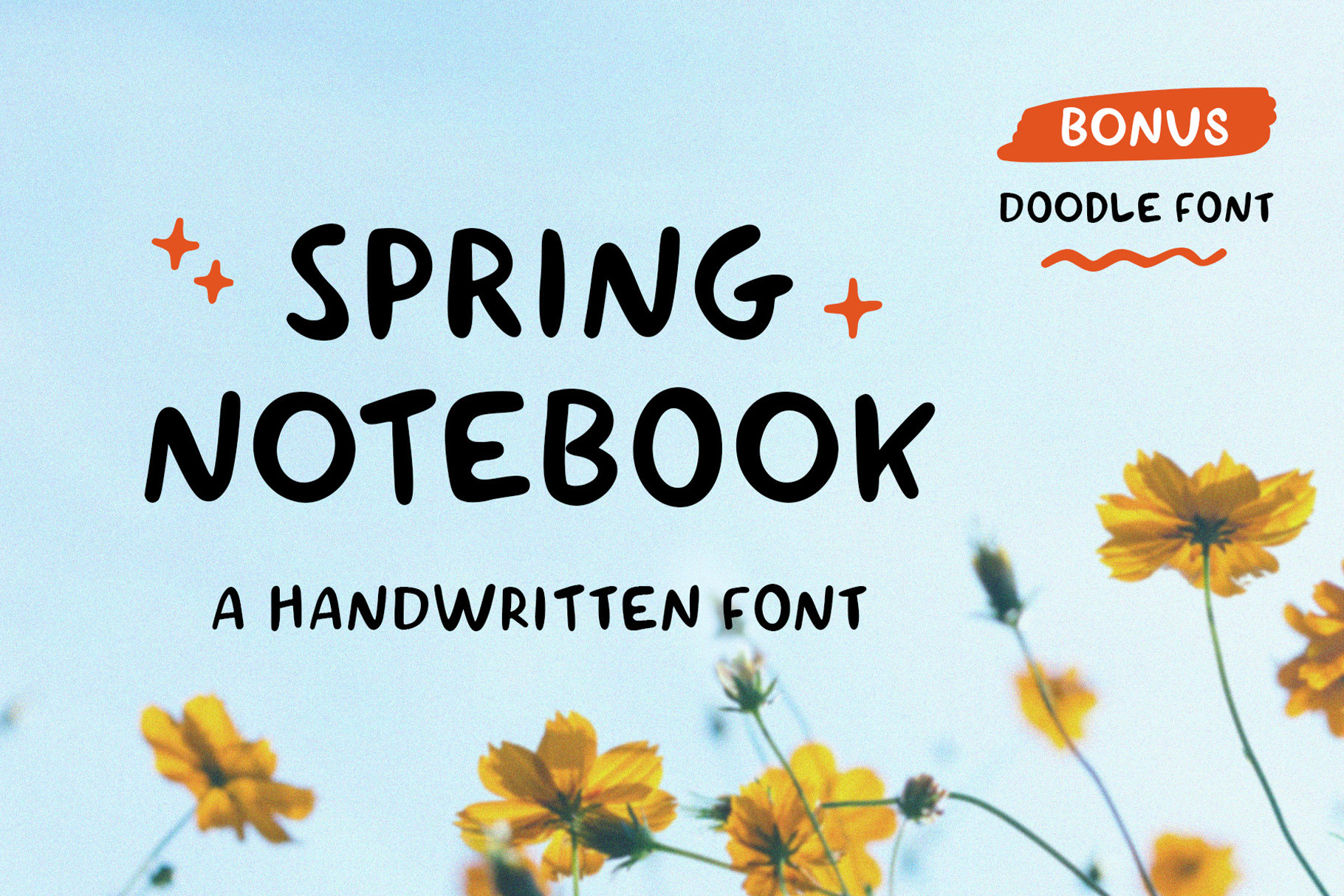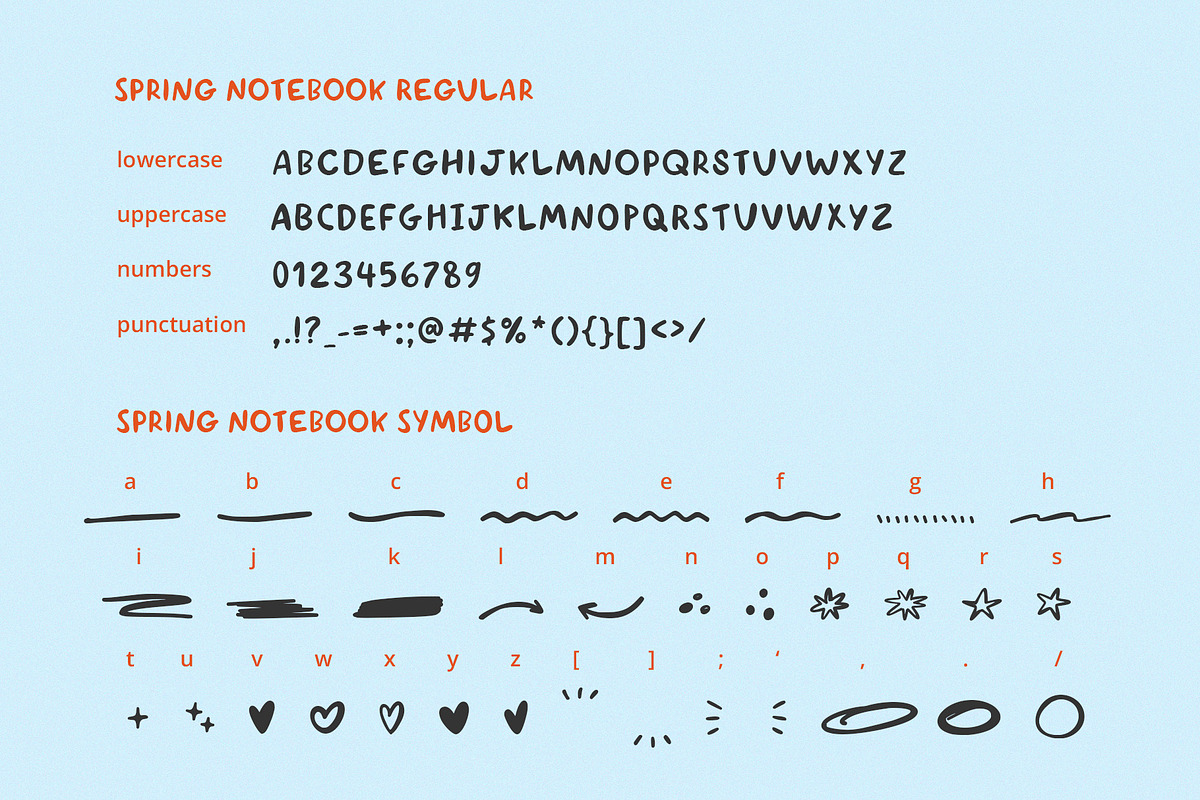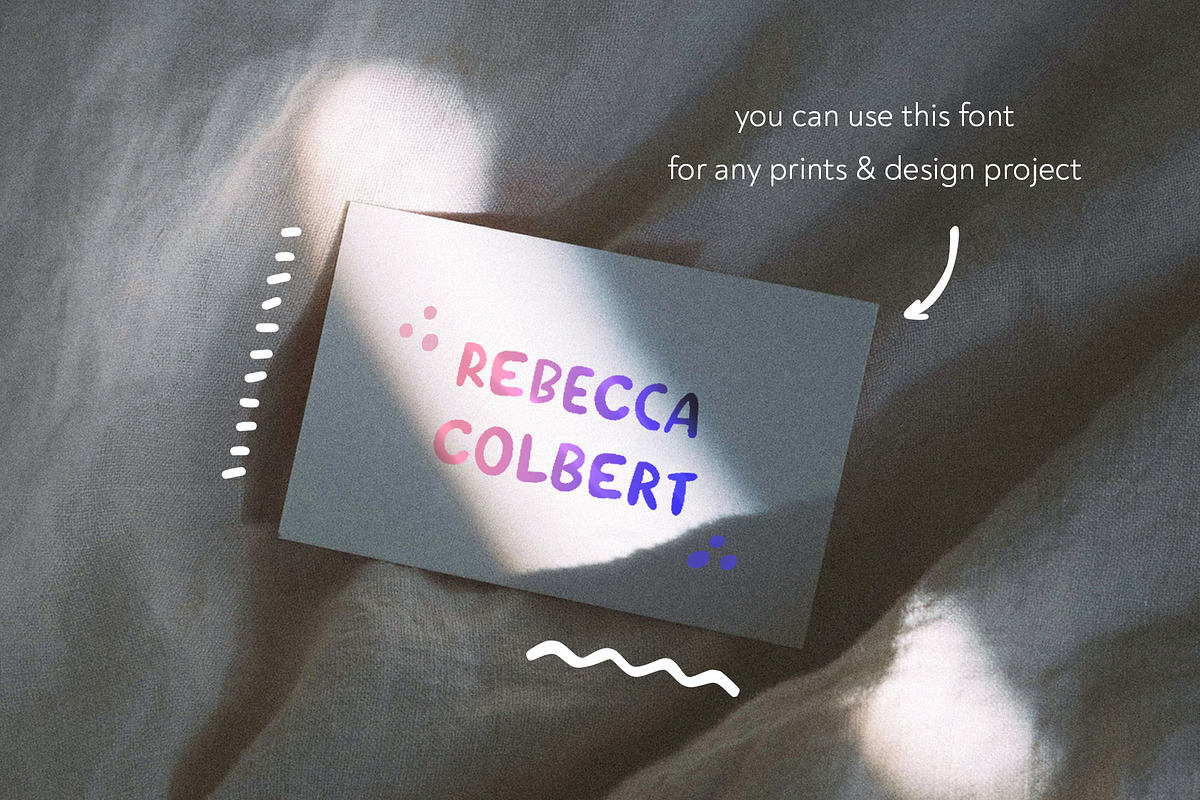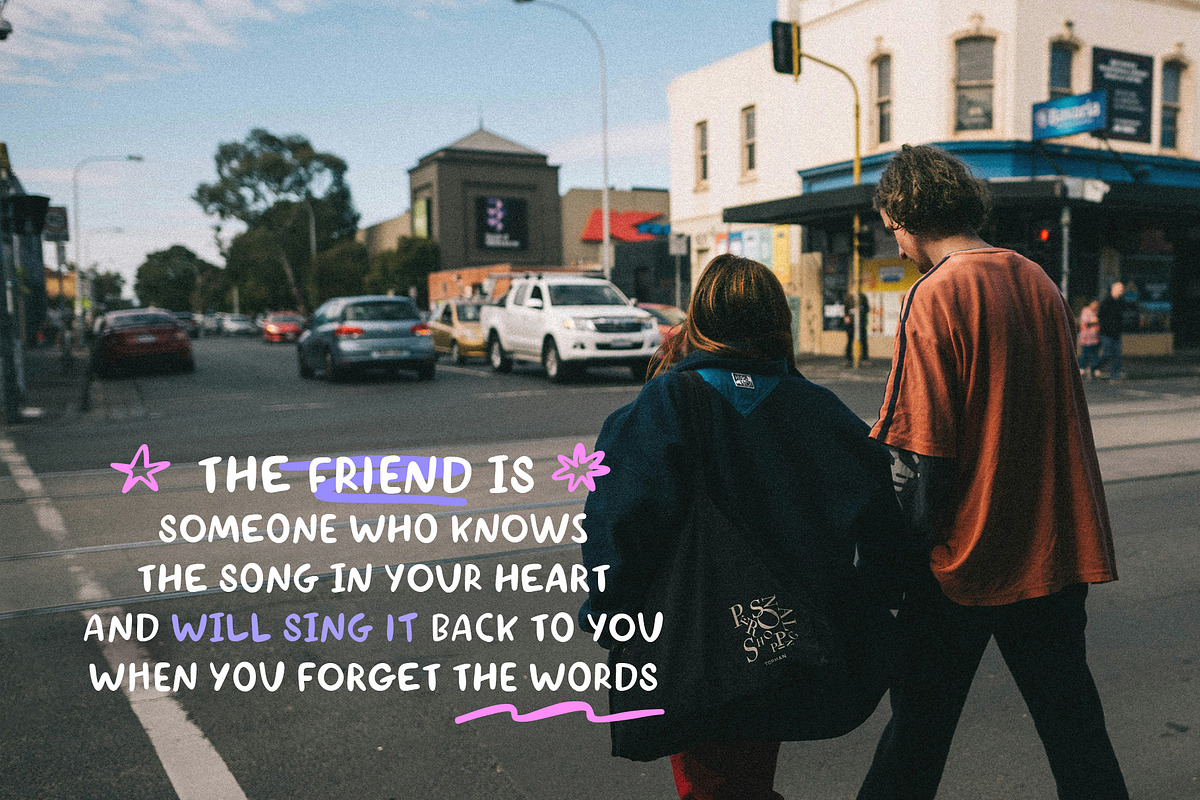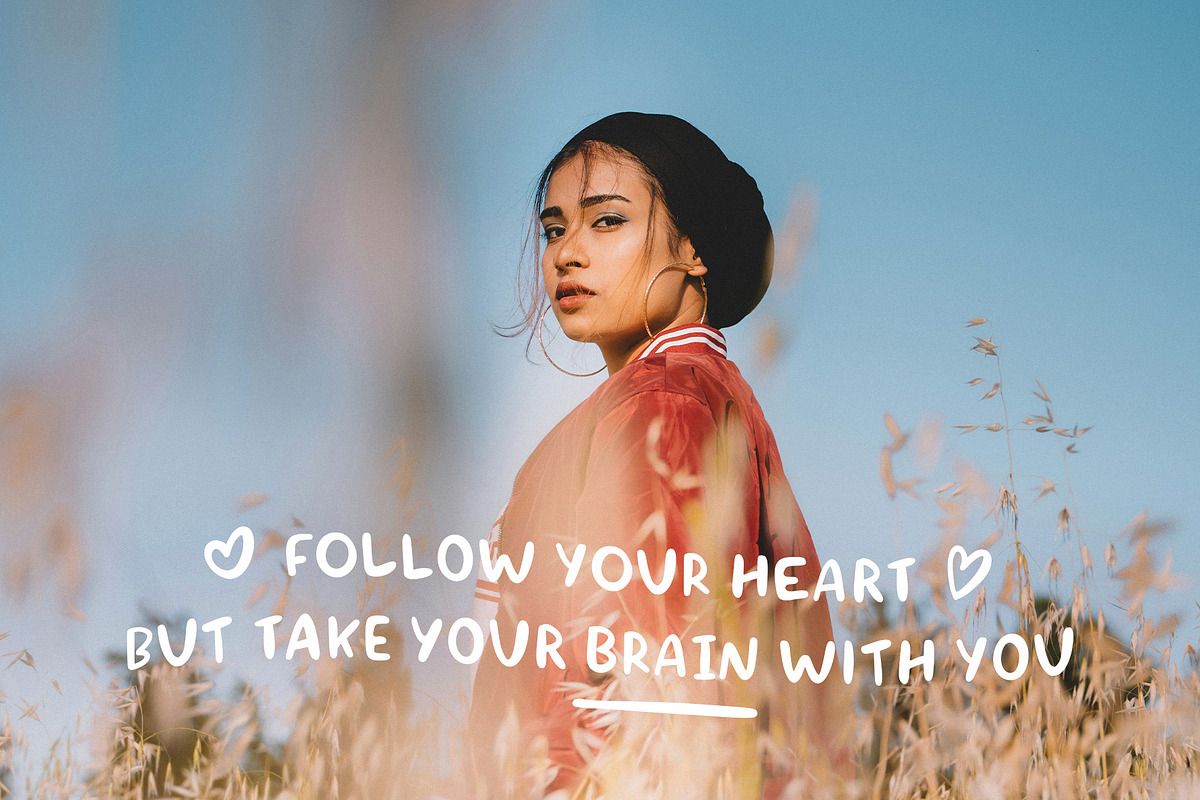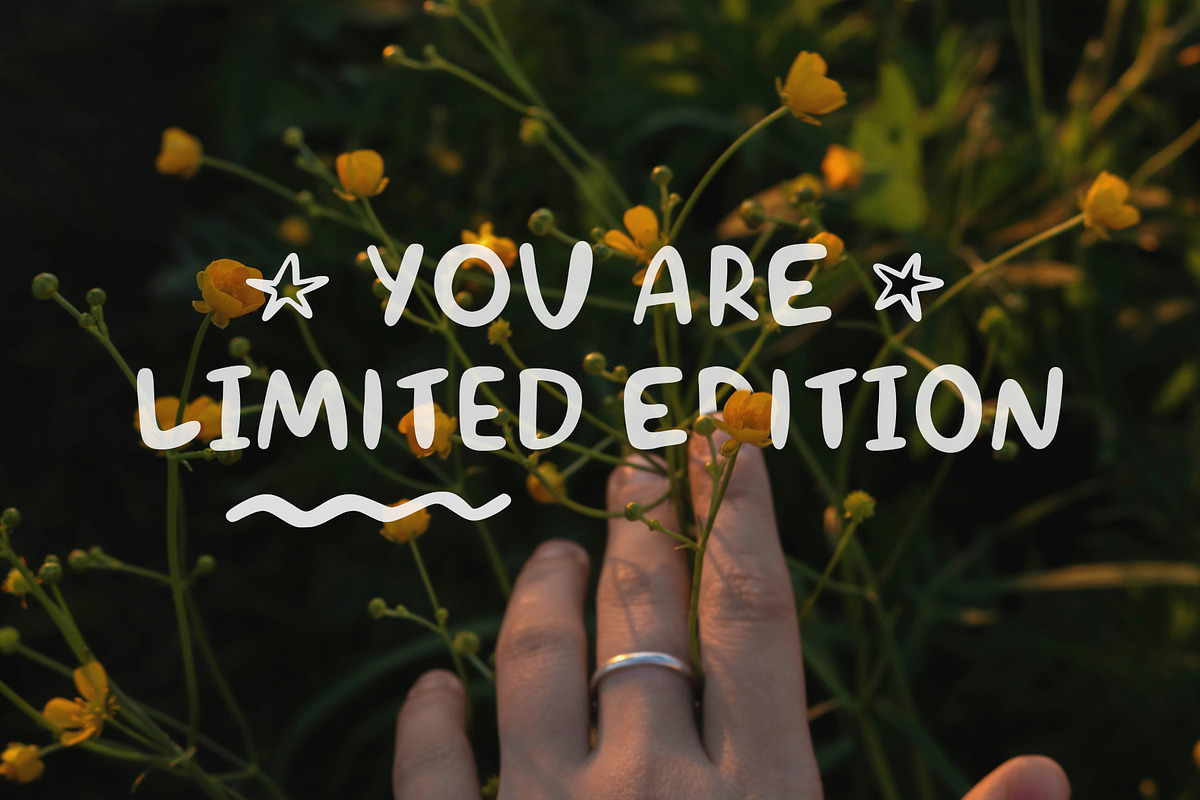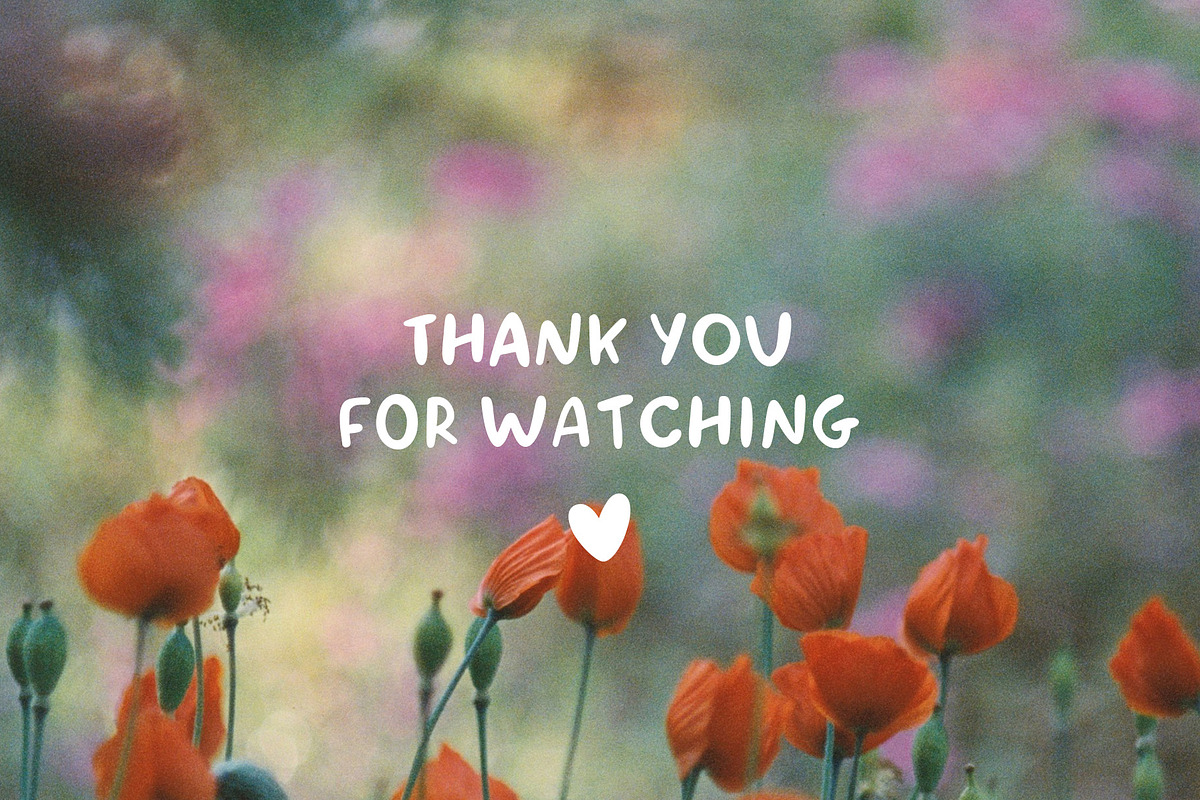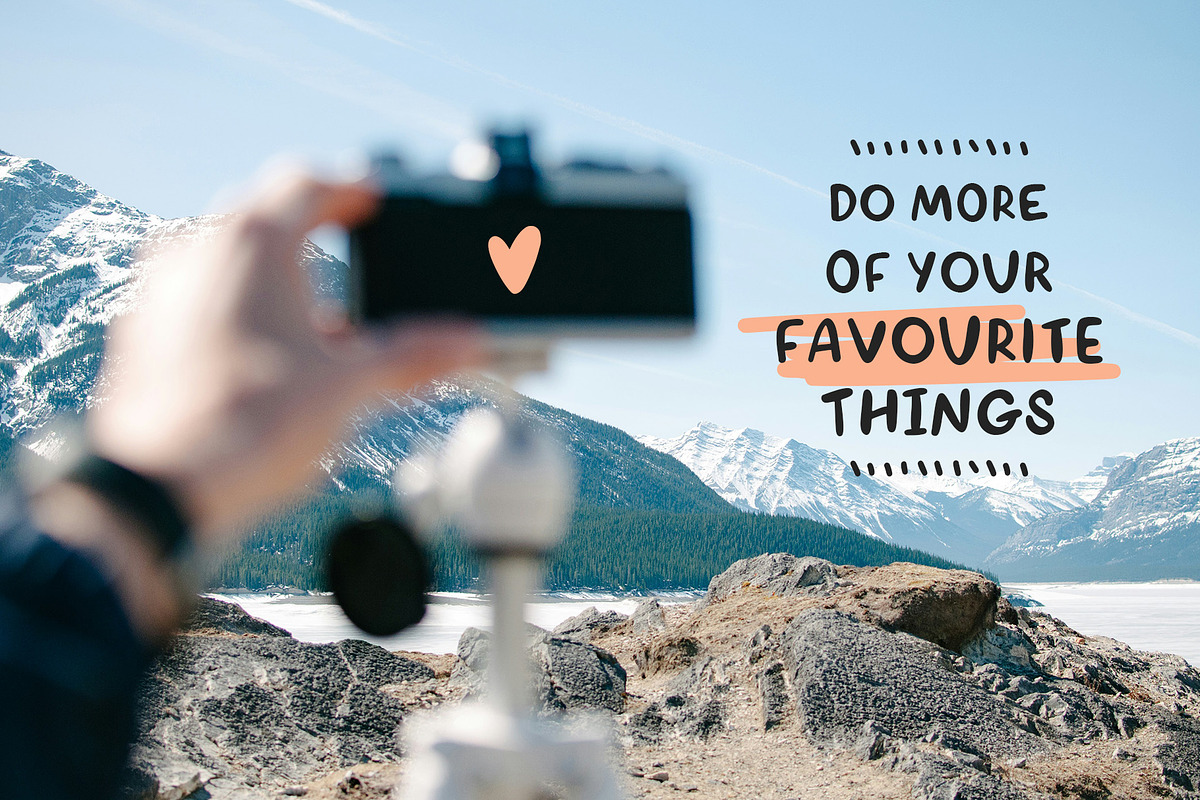
Spring Notebook handwritten font
Spring Notebook is cute handwritten and all caps font. You can mix lowercase with uppercase however you like!
Bonus I added the symbol font with underlines, arrows, circles, hearts, stars and scribbles. It will complete Spring Notebook regular. You can make your own unique compositions, designs with full handmade look.
The Spring Notebook family is two fonts:
- Spring Notebook Regular- all caps font with two sets of uppercase letters
- Spring Notebook Symbol - it's of 33 hand drawn elements